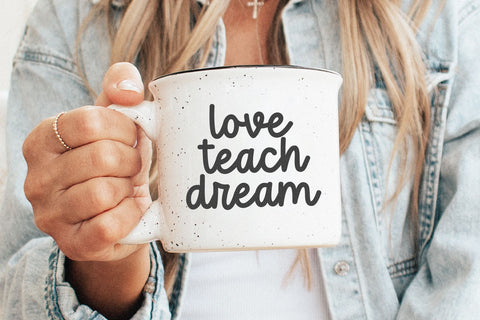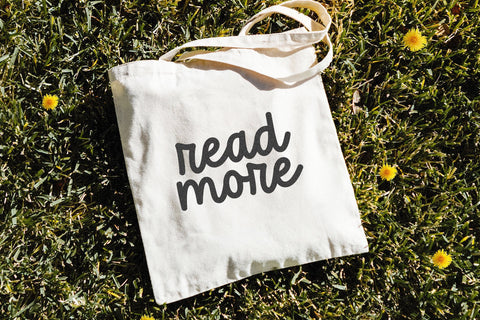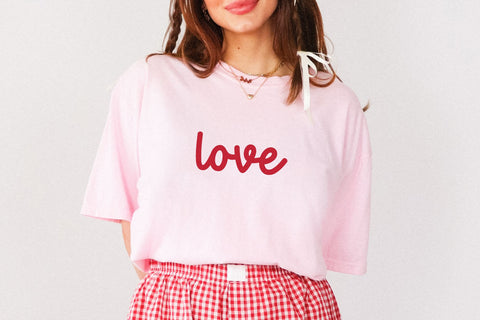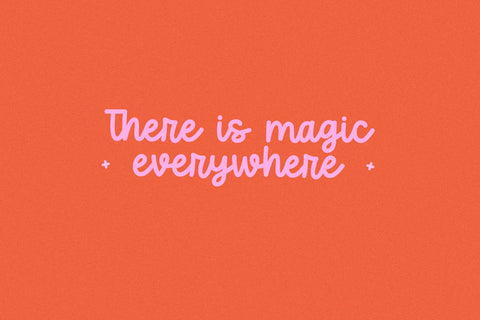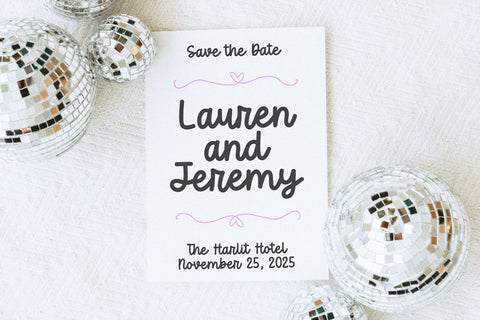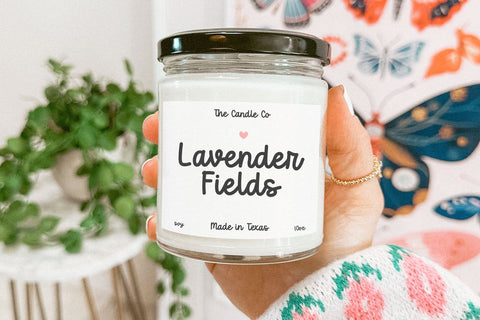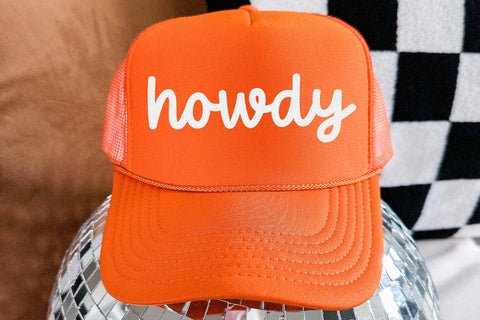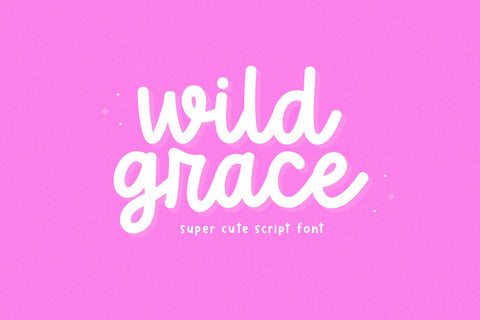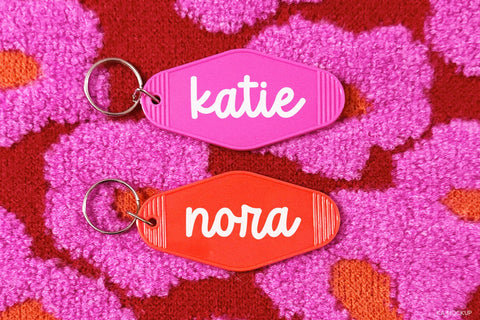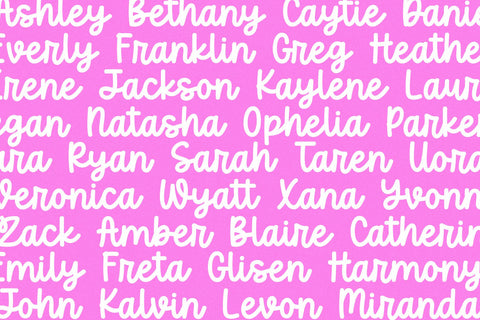
Wild Grace - Cute Script Font
Wild Grace is a cute handwritten script font.
This font is perfect for cricut projects, logos, shirts, svg files, teachers, Valentine's Day designs and more!